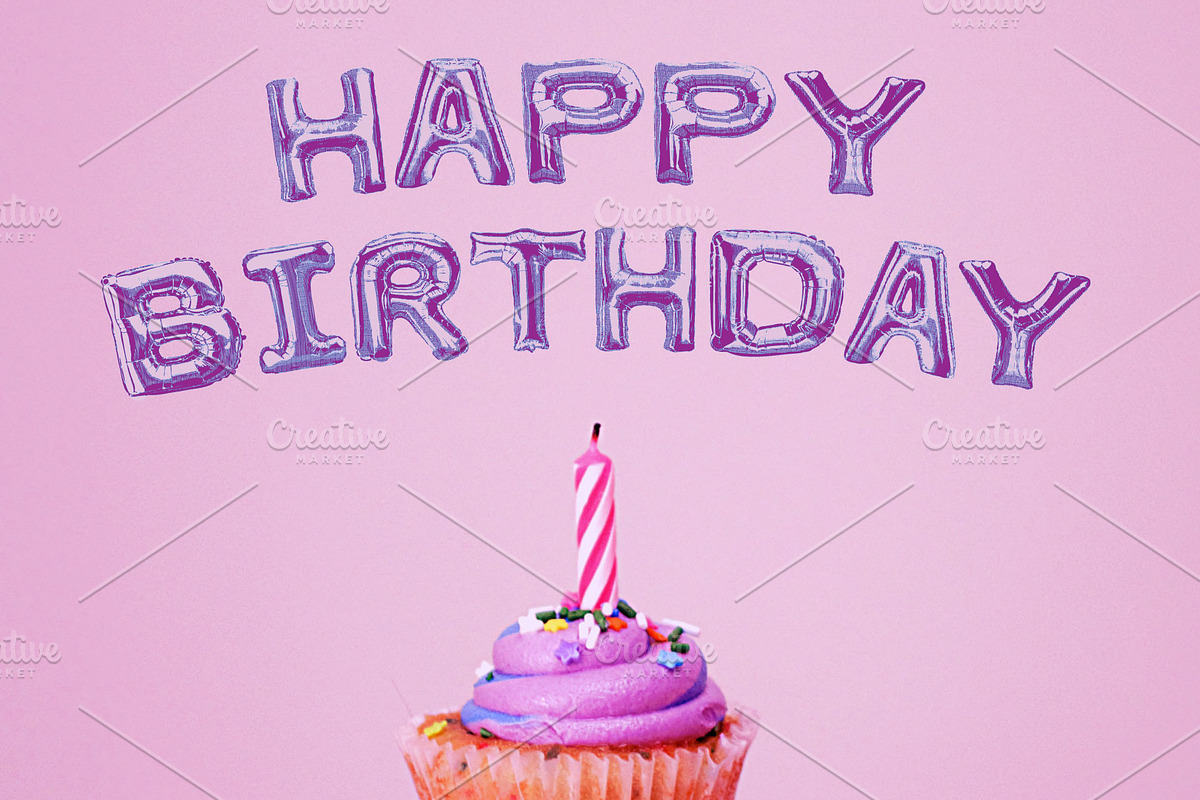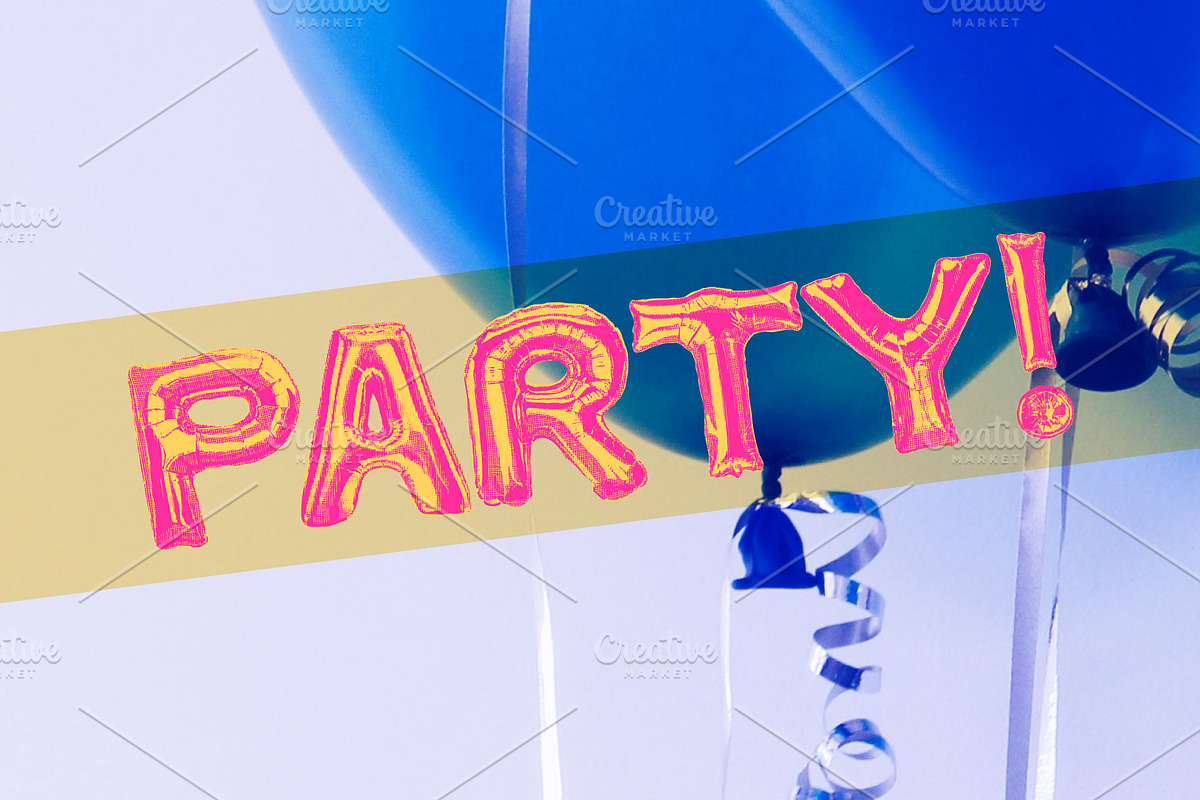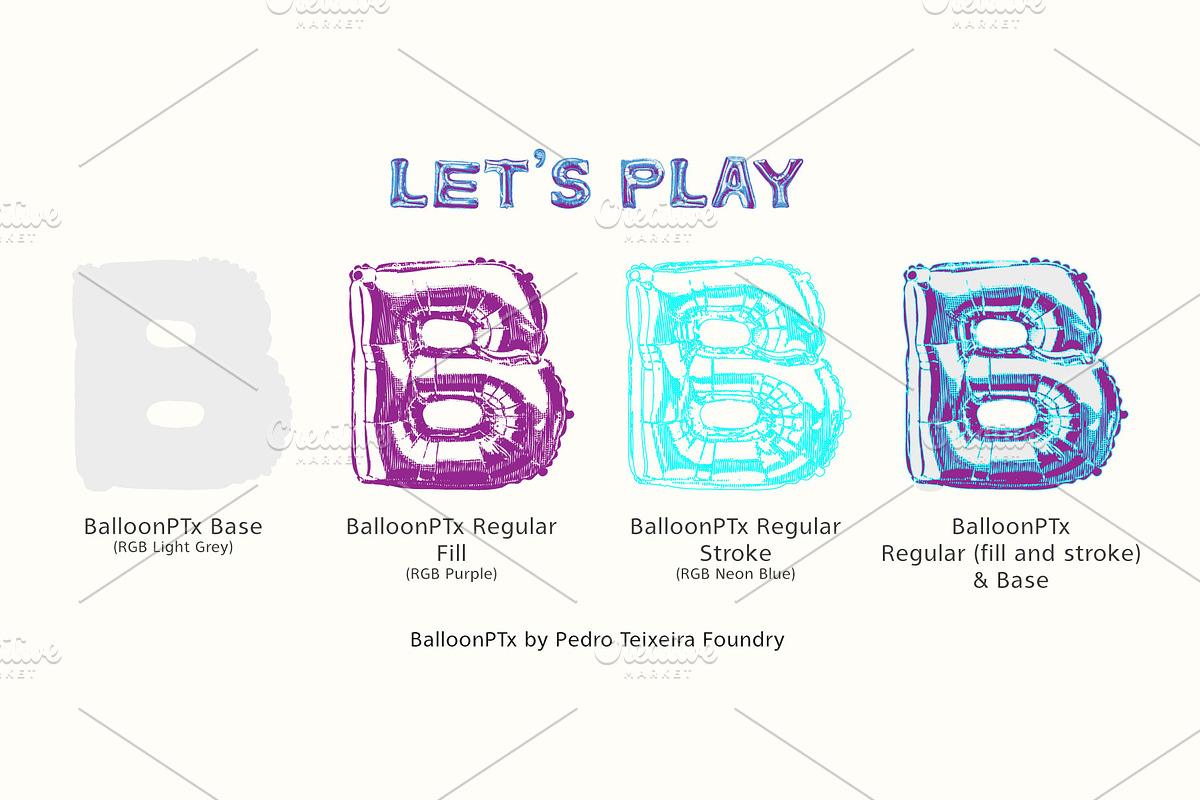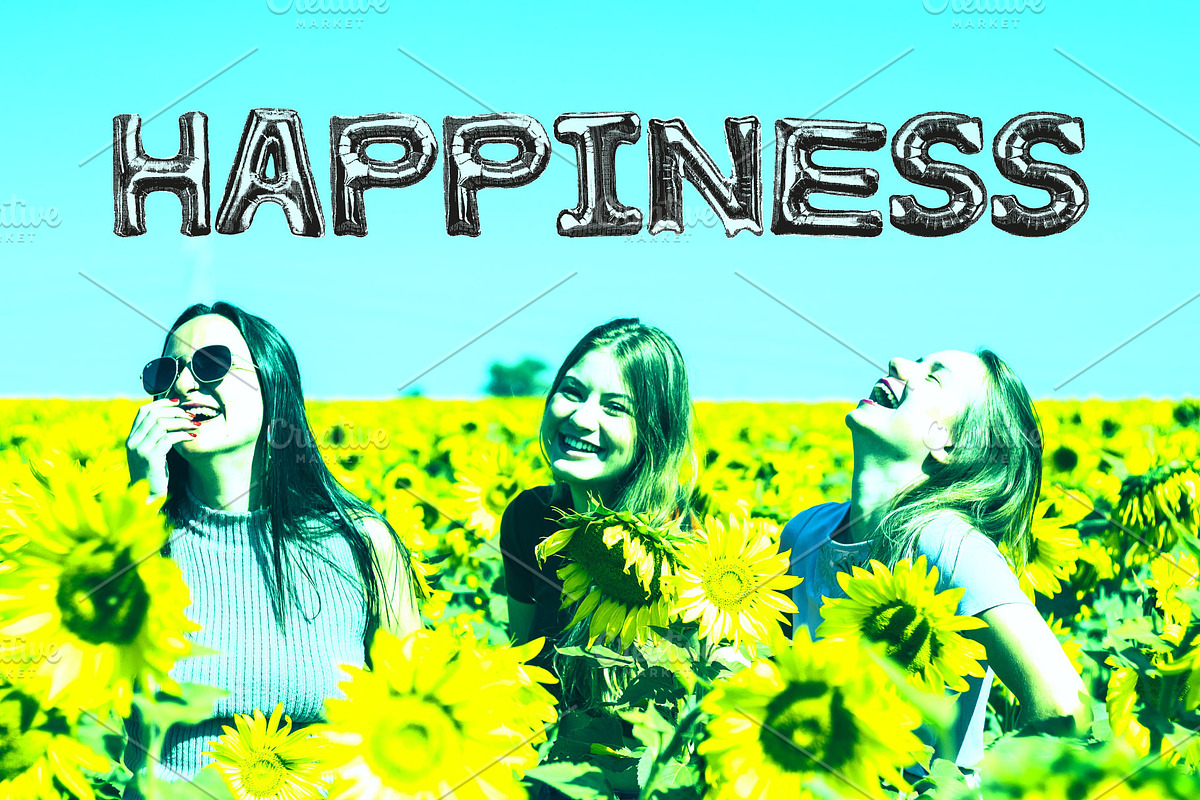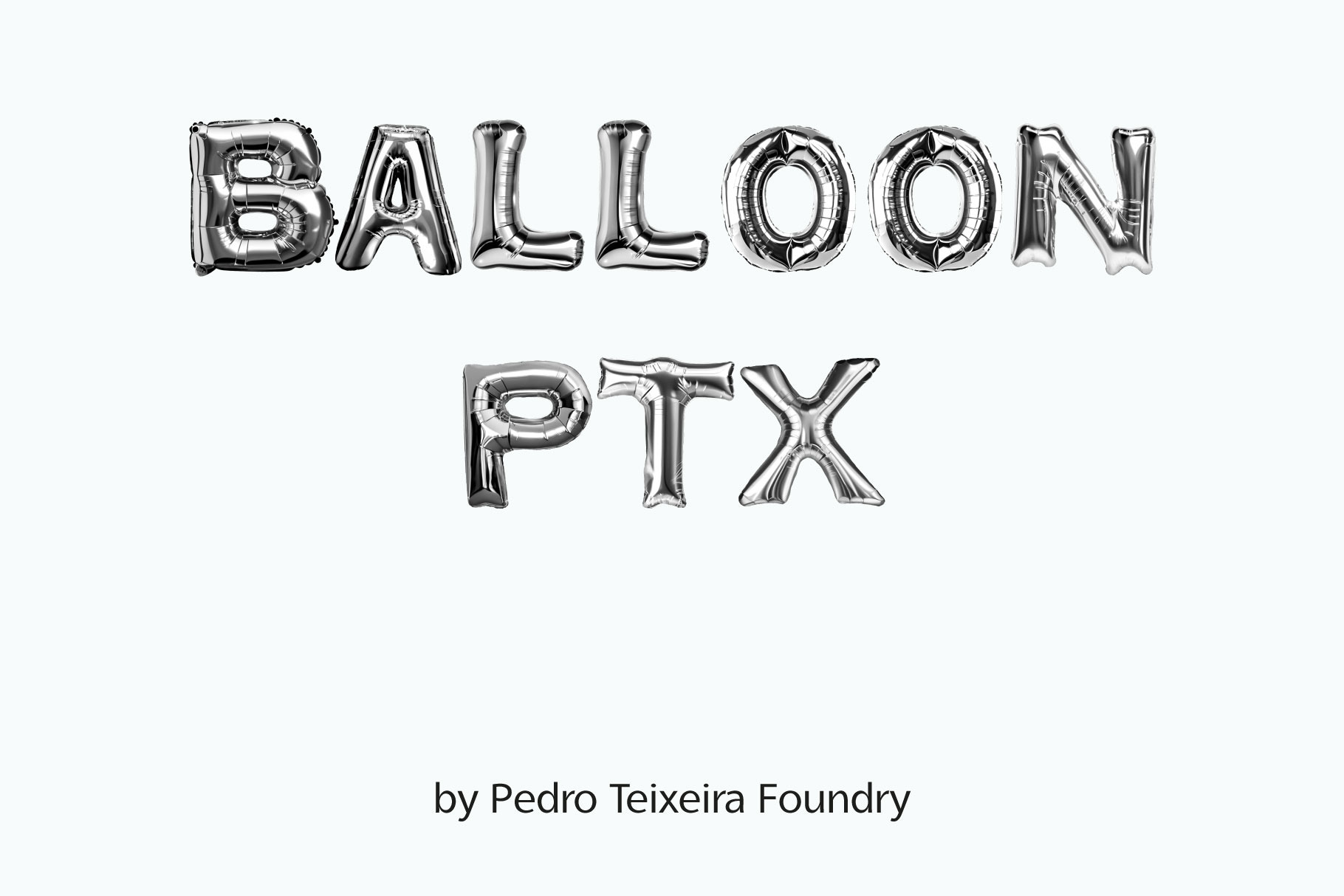
Inflate PTx (SVG) Balloon font
Inflate PTx SVG version - Balloon font
Introducing the Inflate PTx font family, a delightful and playful typeface collection that embodies the buoyant spirit of celebration and festivity.
The Inflate PTx font family is tailor-made for creative projects, from birthday party invitations and children's book illustrations to social media graphics for Instagram or themed event posters. Its rounded edges and bubbly forms infuse any design with an infectious sense of joy and lightheartedness, making it an ideal choice for those seeking a playful and festive typographic solution.